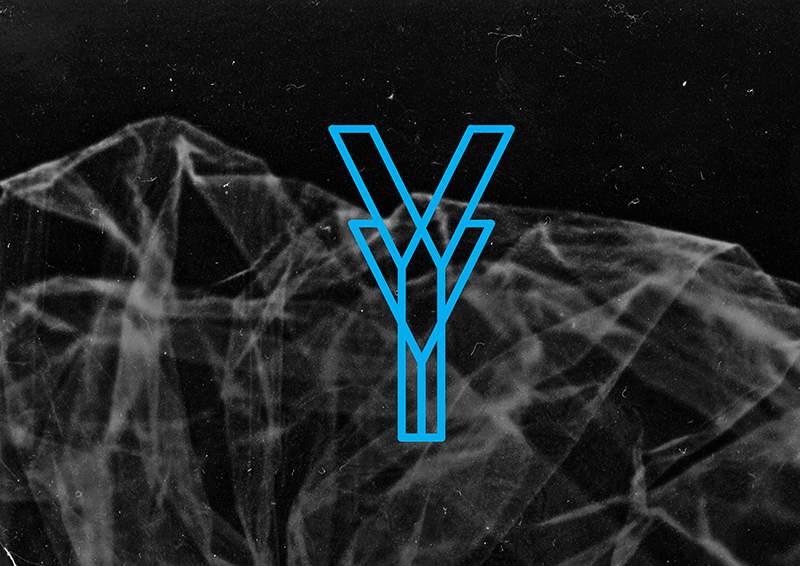
Font name: | Finity |
Author: | Agnes Bertothy |
Note by Agnes Bertothy | |
The task was to create a modern, clean typeface, which is inspired by future technologies. Finity combines the complexity of the mechanical systems with the simplicity of the lines. |